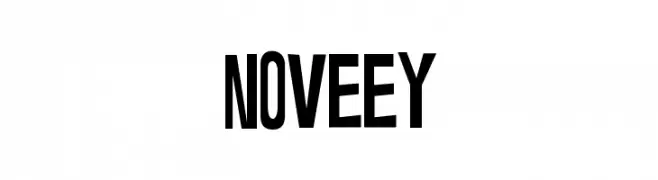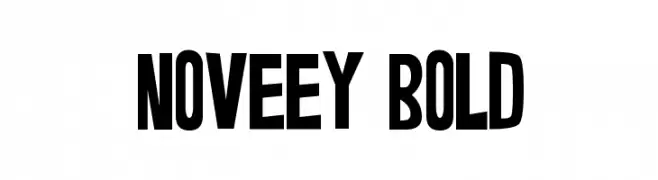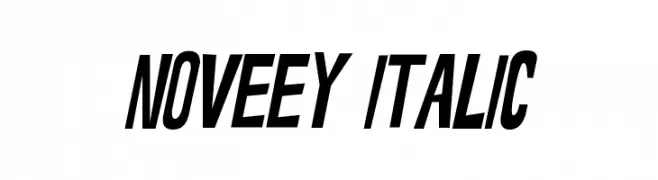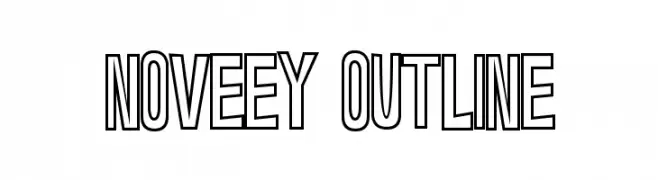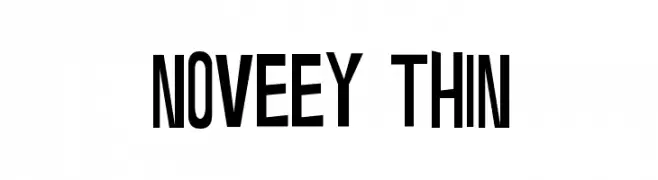
A bold, modern typeface with thick strokes and a slightly condensed style.
A bold, italic font with sharp angles and a modern, dynamic style.
A bold, outlined font with a modern and geometric style.
A modern, bold font with tall, narrow uppercase letters and cohesive design.